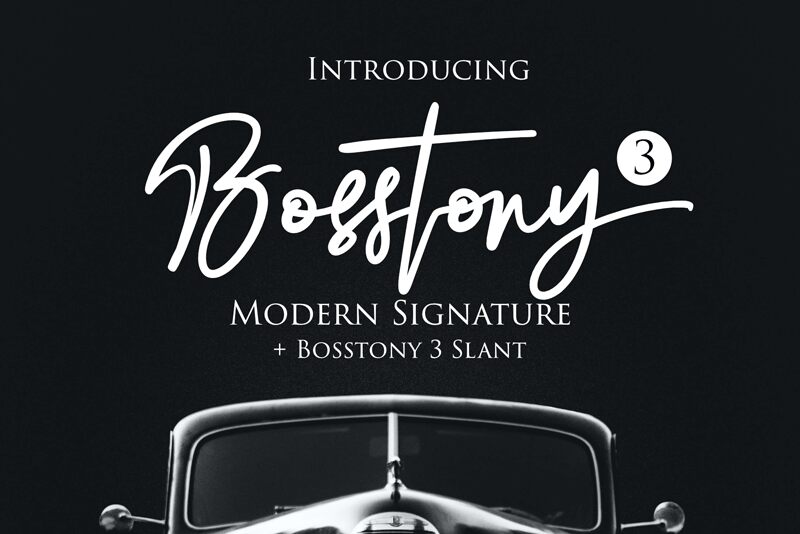
Bosstony 3 font by DumadiStyle is a free handwritten font with an expressive style that beautifully nurtures its content. The imperfectly flowing curves look truly elegant and guarantee for a dynamic personal experience when used. The collection includes uppercase letters, lowercase letters, and other cool signs. Bosstony 3 is developed by DumadiStyle as a modern free font for personal use.
Apart from being contemporary, the font really excels in branding purposes, including but not limited to label design, branding, logos, stationeries, and others. More interested individuals can equip their invitation design, book covers, digital projects, or other print designs with Bosstony 3. It is worth mentioning that this font still works if used on digital platforms including social media posts, backgrounds, and digital images.